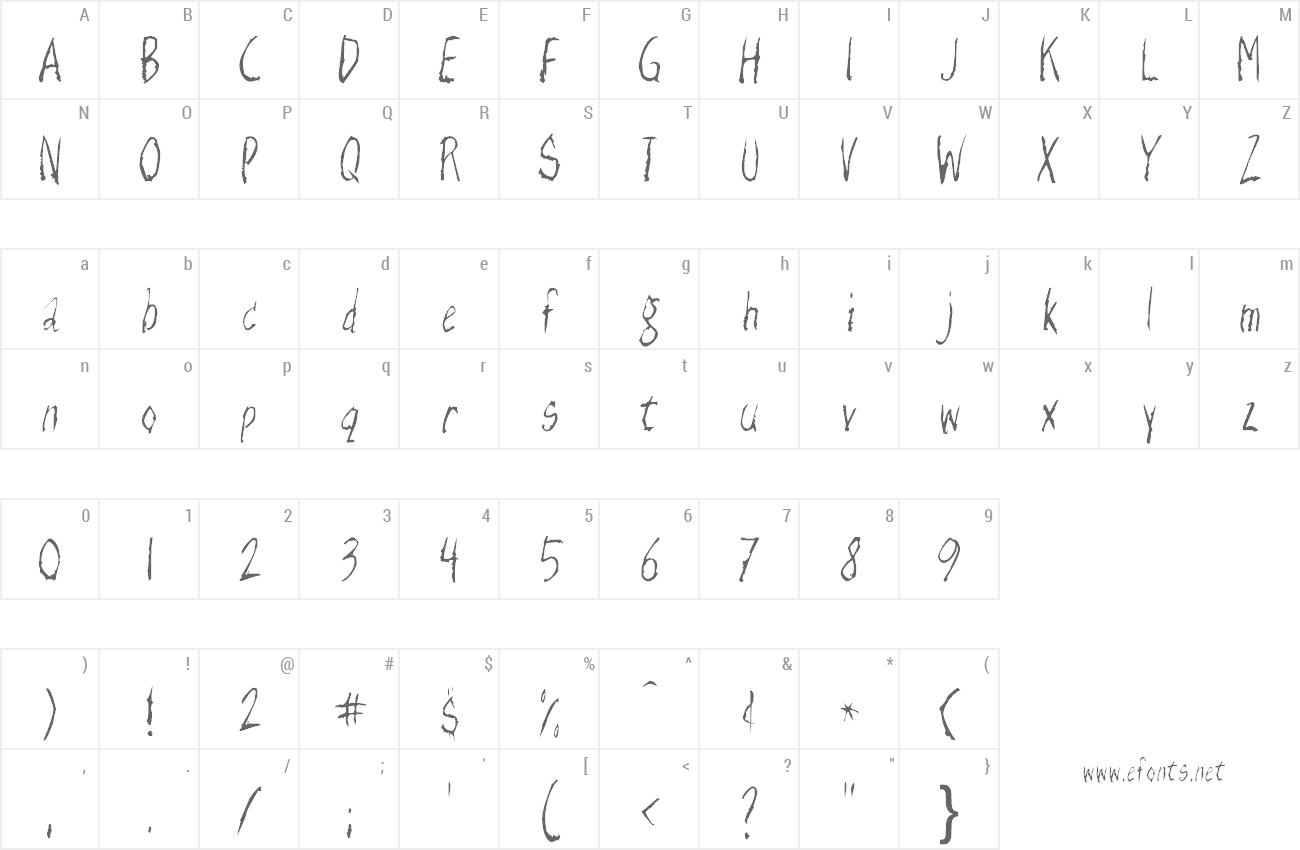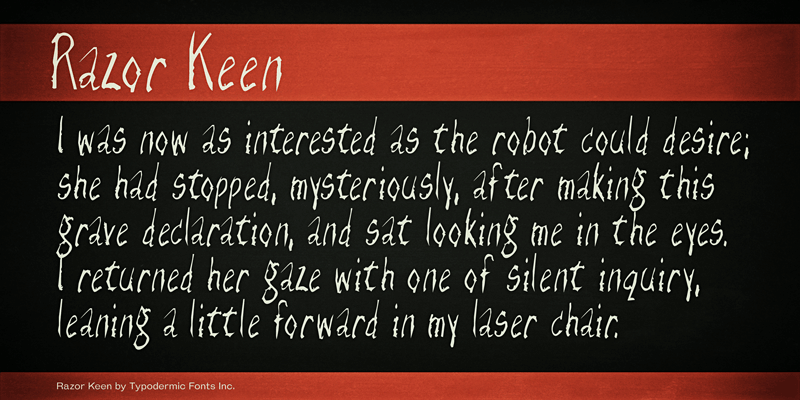
| Font name: | Razor Keen |
Razor Keen is frightful slasher cacography, scrawled with a mapping quill on newsprint. This font includes a license that allows free commercial use: sometimes referred to as a desktop license. This allows you to install the font on a computer and use it to create posters, web graphics, game graphics, t-shirts, videos, signs, logos and more. Read the license agreement for details. If you'd like to embed this font in an app, ebook, on the web or anything that's not covered by the desktop license agreement, visit the link below. You'll find distributors who offer different types of licenses or you can contact me for help. http://typodermicfonts.com/razor-keen/ |